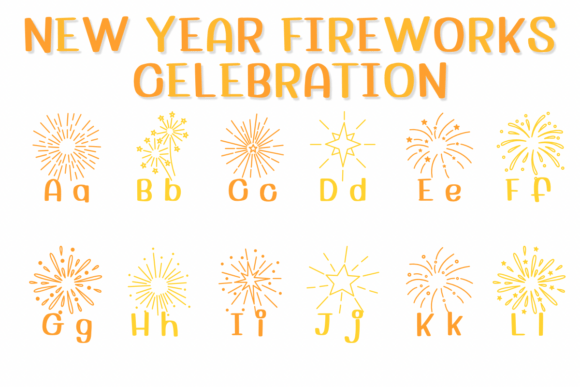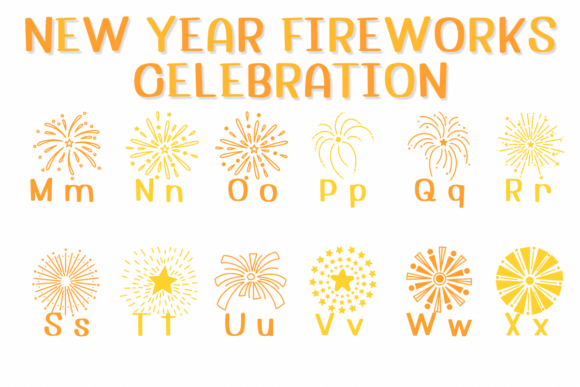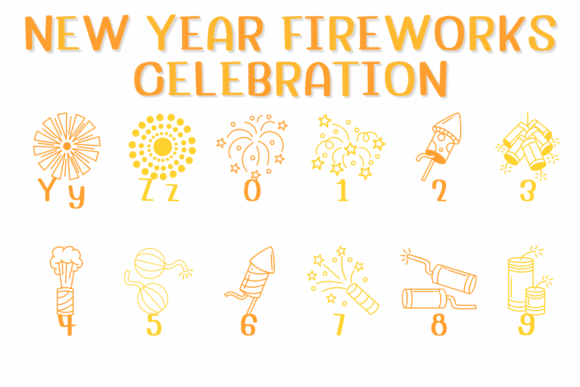
Introduction to New Year Fireworks Celebration Font
As you sit at your desk, staring at a blank canvas, the clock strikes midnight and the fireworks light up the sky. You’re filled with creative energy and the urge to capture the magic of the moment. That’s where the New Year Fireworks Celebration Font comes in – a vibrant collection of illustrative icons designed to bring the explosive beauty of pyrotechnics to your digital canvas.
This high-quality design resource is a game-changer for designers looking to add instant energy and festive flair to their projects. With a free download available, you can access a vast library of characters, each meticulously crafted to represent the shimmering glitter trails, intricate floral-like explosions, and cascading sparks of a midnight sky.
New Year Fireworks Celebration Font
- Unique fireworks design elements for a festive and celebratory feel
- Perfect for New Year’s Eve and other holiday-themed projects, or as a standalone design element
Honest Review: New Year Fireworks Celebration Font
Upon closer inspection, I was pleased to find that the font features a transparent background, which makes it easy to use and customize. The font itself is well-designed and effectively conveys the theme of New Year’s celebrations.
- ✨ The transparent background allows for easy customization and layering.
- ✨ The font is well-designed and effectively conveys the theme of New Year’s celebrations.
- ⚠️ The font may not be suitable for use in formal or professional settings due to its celebratory theme.
- ⚠️ The font is limited in its style options, which may not be ideal for designers seeking a wide range of customization options.
Overall, I’m impressed with the New Year Fireworks Celebration Font. While it has its limitations, it’s a great resource for designers working on creative projects that require a celebratory feel. I’d definitely recommend it for its high quality and ease of use.
How to Use New Year Fireworks Celebration Font
The New Year Fireworks Celebration Font is a high-quality, free download font designed for creative projects. Its unique design makes it perfect for adding a touch of festive atmosphere to your designs.
Tips for Getting the Most Out of the Font
To get the most out of the New Year Fireworks Celebration Font, use it in combination with other festive graphics and elements, such as fireworks and confetti.
The New Year Fireworks Celebration Font is perfect for:
New Year’s Eve invitations and party decorations
Fireworks-themed social media posts and graphics
Year-end review and goal-setting templates